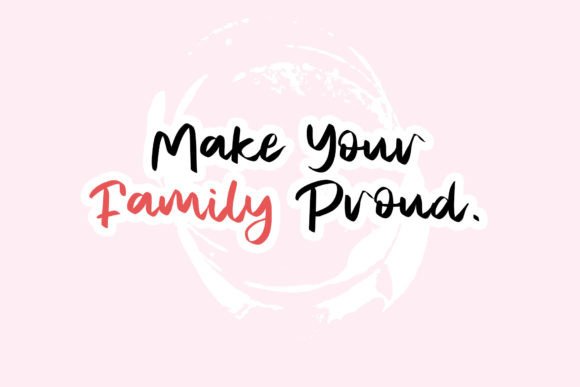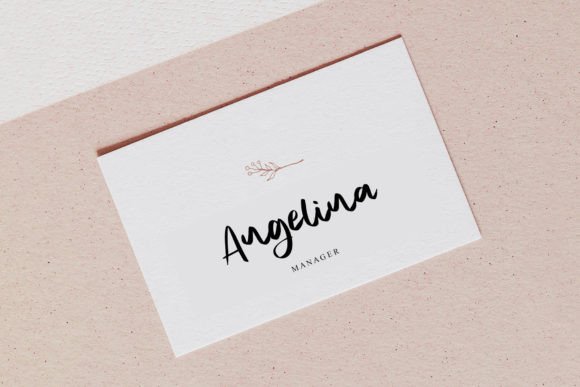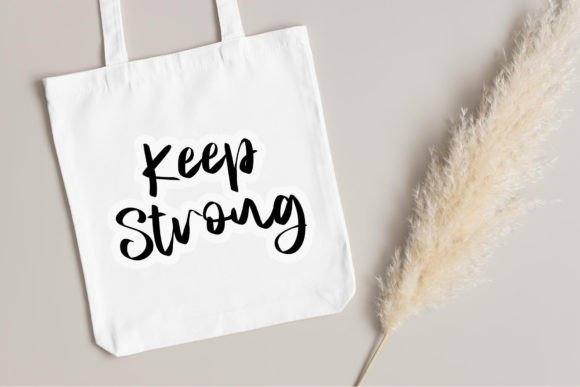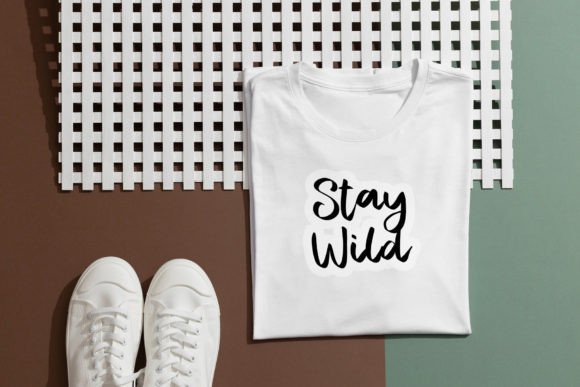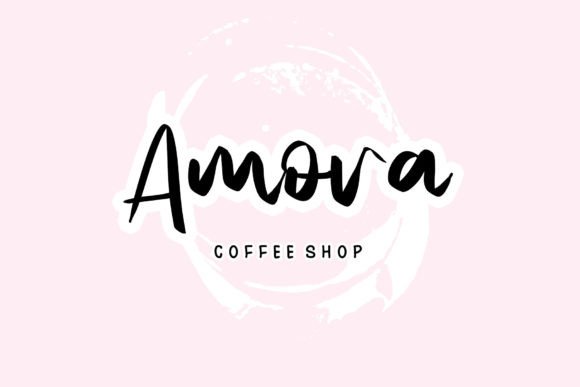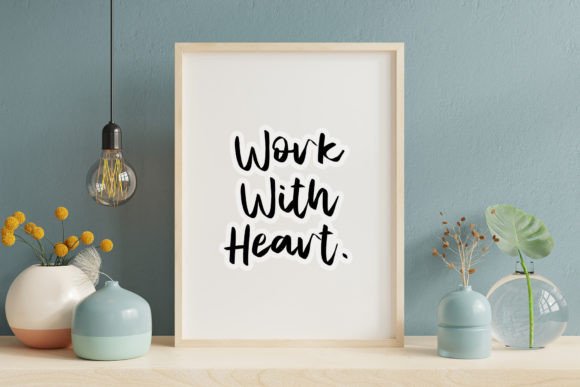
Introducing Anggita Font: A Timeless Handwritten Masterpiece
Are you on the hunt for a font that can elevate your designs and make them truly unforgettable? Look no further than Anggita Font, a lovely and timeless handwritten font that is sure to capture the hearts of designers and crafters alike. With its unique and beautiful touch, Anggita is the perfect choice for creating eye-catching logos, branding, and quotes that will leave a lasting impression.
Handwritten fonts have a way of adding a personal touch to any design, making it feel more approachable and relatable. They can evoke emotions and convey a sense of warmth and personality that is hard to achieve with more formal fonts. And Anggita Font is no exception. With its delicate and elegant strokes, this font is sure to add a touch of sophistication and whimsy to any design.
What Makes Anggita Font Special?
So, what sets Anggita Font apart from other handwritten fonts out there? For starters, every letter has a unique and beautiful touch that will make your design come alive. The font is also PUA encoded, which means you can access all glyphs and swashes effortlessly. This makes it easy to customize your design and add your own personal touches.
Anggita Font is incredibly versatile and can be used for a wide range of design projects. Whether you’re looking to create a stunning logo, develop a brand identity, or craft a beautiful quote, this font is the perfect choice. Its elegant and refined appearance makes it suitable for a variety of industries, from fashion and beauty to food and lifestyle.
Anggita Font offers a range of benefits for designers and crafters, including:
- Ease of use: With its PUA encoding, Anggita Font is easy to use and customize, even for those without extensive design experience.
- Unique and beautiful touch: Every letter has a unique and beautiful touch that will make your design stand out.
- Versatility: Anggita Font can be used for a wide range of design projects, from logos and branding to quotes and more.
- Timeless appeal: This font has a timeless quality that will ensure your design remains stylish and relevant for years to come.
Tips for Using Anggita Font
To get the most out of Anggita Font, here are a few tips to keep in mind:
- Experiment with different sizes and colors: Anggita Font looks great in a variety of sizes and colors, so don’t be afraid to experiment and find the perfect combination for your design.
- Pair with other fonts: Anggita Font pairs well with other fonts, so try combining it with a bold font for headings or a clean font for body text.
- Use swashes and glyphs: With its PUA encoding, Anggita Font comes with a range of swashes and glyphs that can be used to add a personal touch to your design.
| Font Name | Anggita Font |
| Author | Annisa Afni |